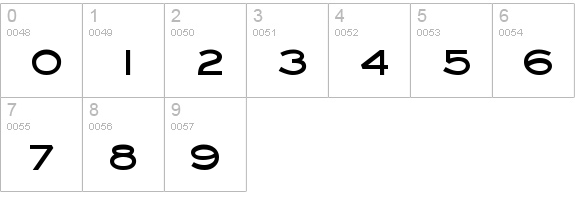
Eyechart Bold Font Details
Eyechart Bold is a strong, high-contrast variant in the Eyechart typeface family \xE2\x80\x94 well suited to headlines, attention-grabbing titles, and strong calls-to-action.
Eyechart Bold font is a visually striking and bold typeface that commands attention with its strong, clear letterforms. This font is perfect for making a statement in headlines, posters, and other display projects. Its clean lines and high contrast make it easily readable even at smaller sizes. And the best part? Eyechart Bold font is completely free to download at FontsMarket.com. So whether you're a designer looking to add a modern touch to your projects or just someone who appreciates stylish typography, this font is a must-have in your collection. Don't miss out on the opportunity to enhance your designs with this eye-catching and versatile typeface!